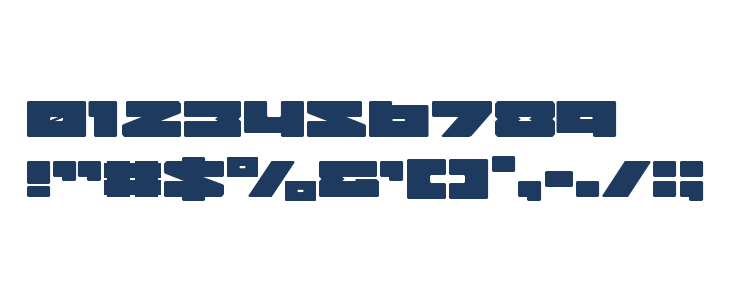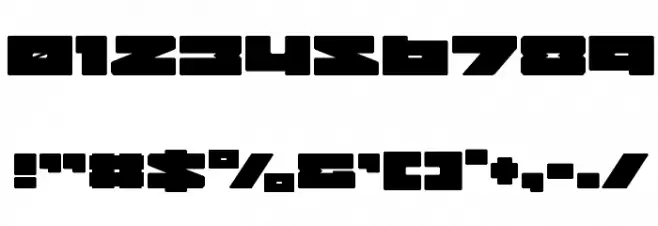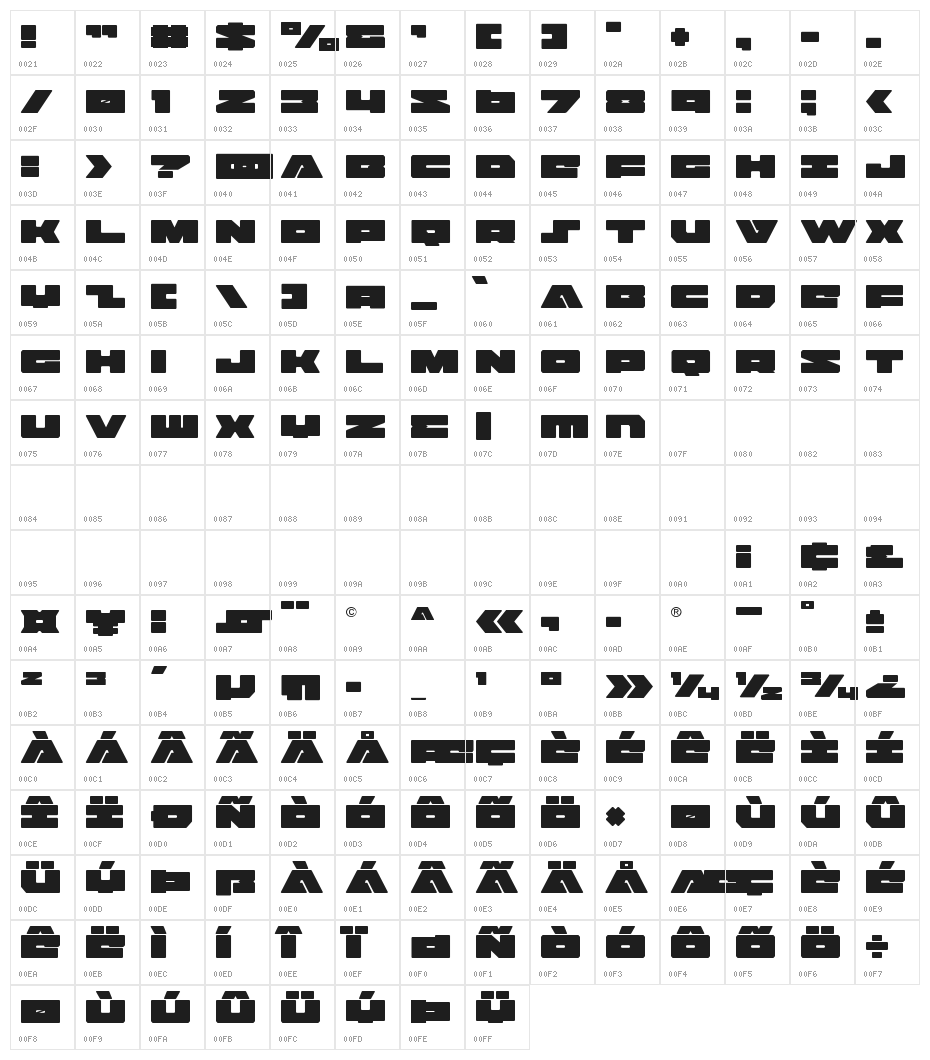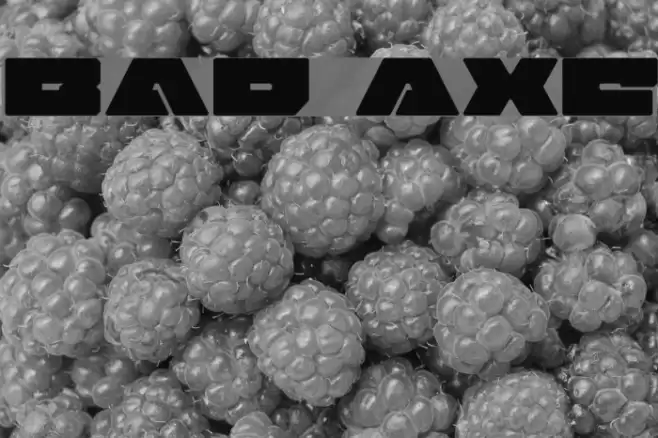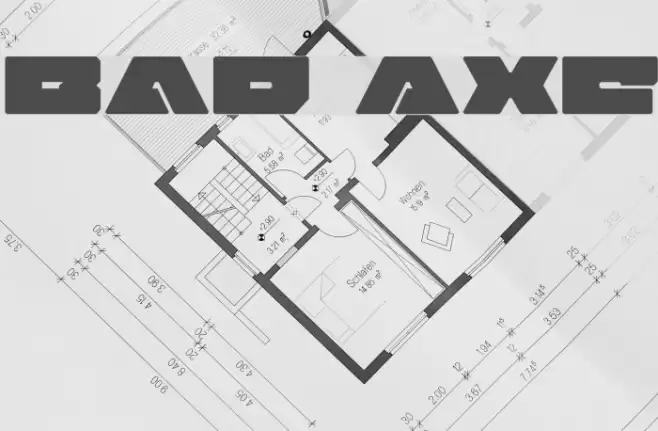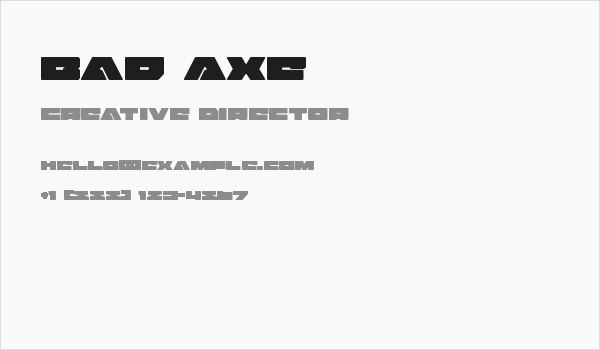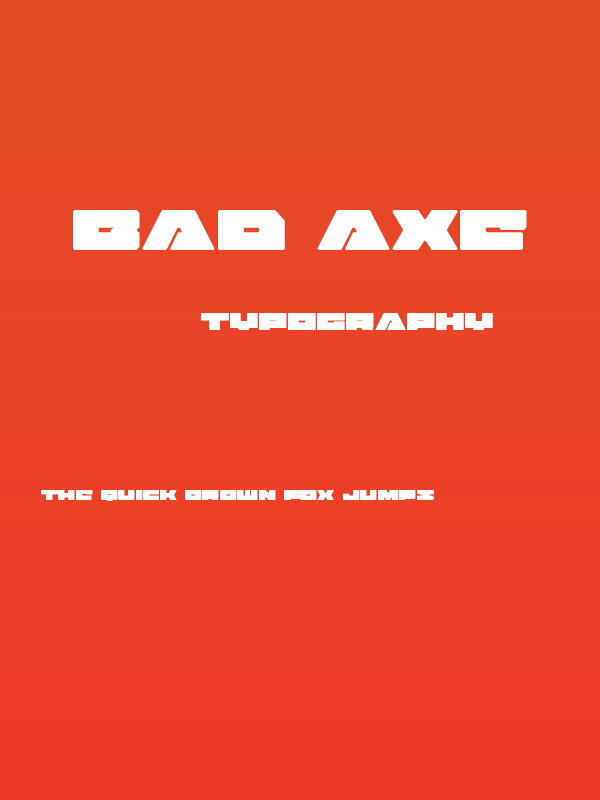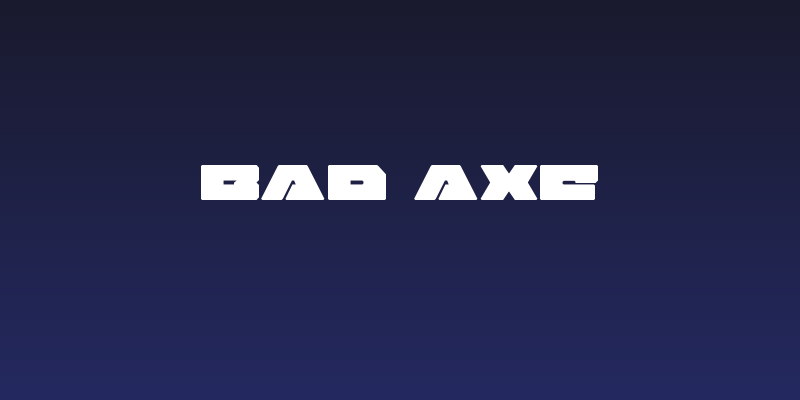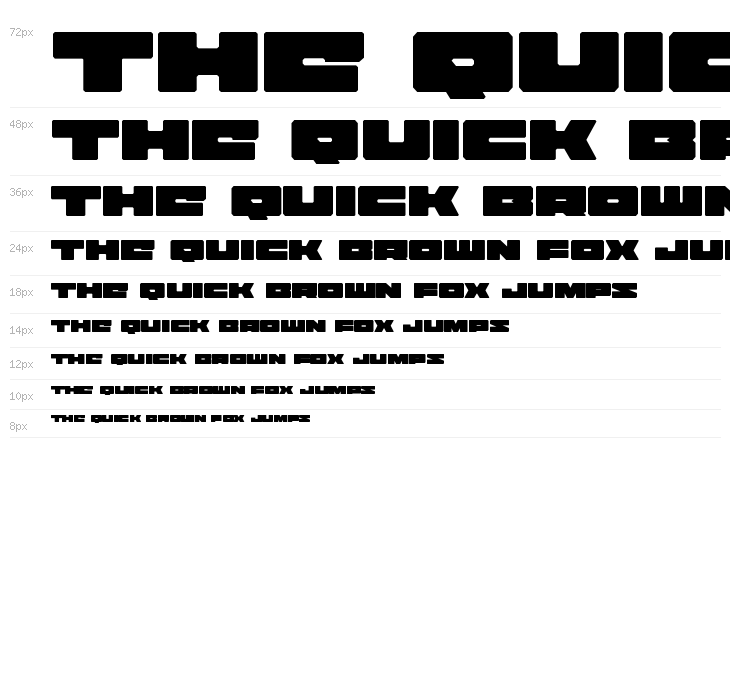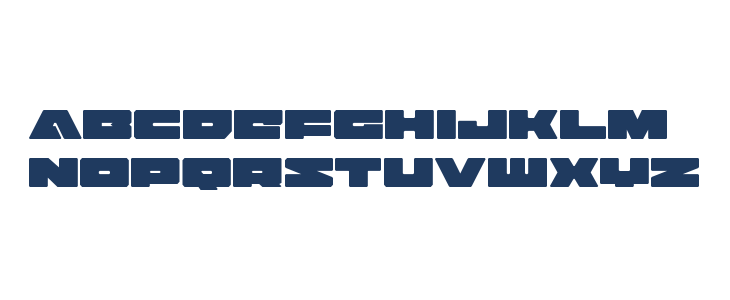
Bad Axe Font
Bad Axe Description
This font features a bold, geometric design with a strong, block-like appearance. Each character is crafted with sharp angles and straight lines, creating a sense of solidity and strength. The uppercase letters are uniform in height, while the lowercase letters maintain a consistent style, offering a cohesive look across the alphabet. The numerals are equally robust, matching the boldness of the letters. Special characters are designed to complement the overall aesthetic, maintaining the same angular and solid form. This font is ideal for projects that require a strong visual impact, such as posters, headlines, and branding materials.
| Proposed Projects | Ideal for posters, headlines, branding materials, and any project requiring a strong visual impact. |